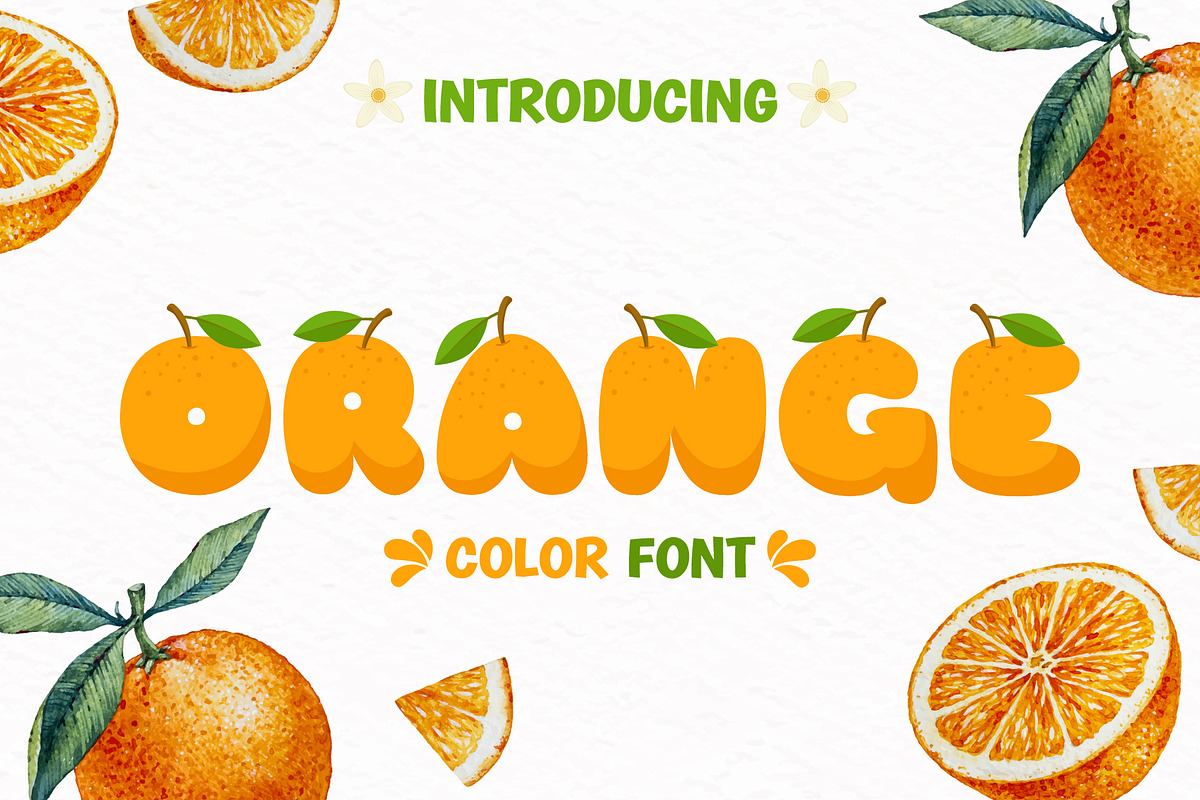
Orange Color Font Free Download is a vibrant and bold typeface designed to add warmth and energy to your projects. With its strong letterforms and eye-catching design, Orange Color is perfect for branding, headlines, posters, social media graphics, and any design that needs a pop of personality.
This font combines modern and playful elements, making it ideal for projects that aim to stand out and capture attention. Whether you’re creating a logo for a dynamic brand, designing an event flyer, or crafting engaging digital content, Orange Color adds a striking and contemporary touch to your typography.